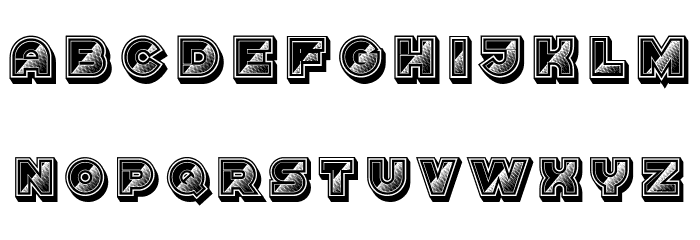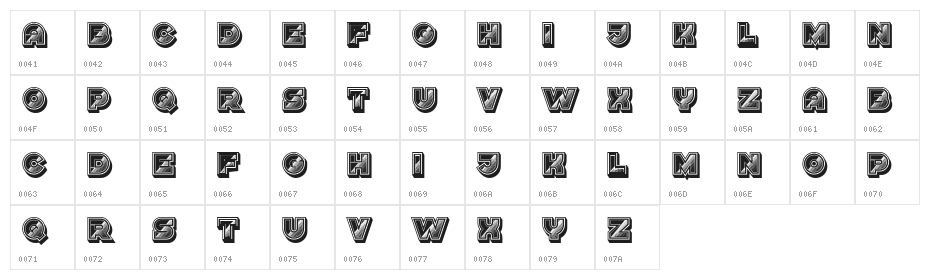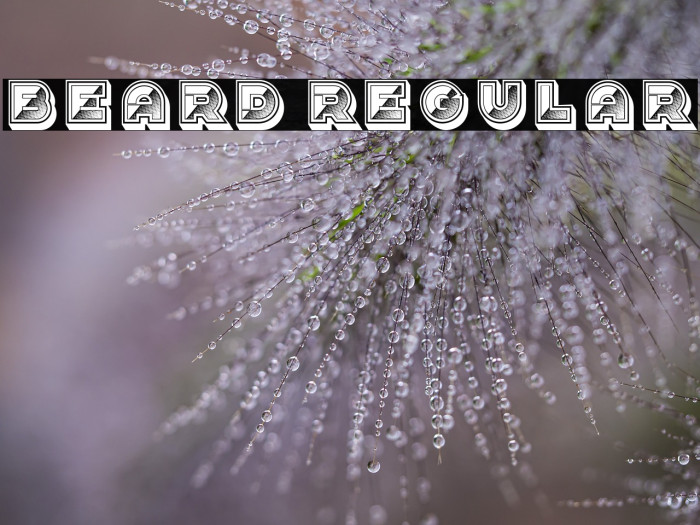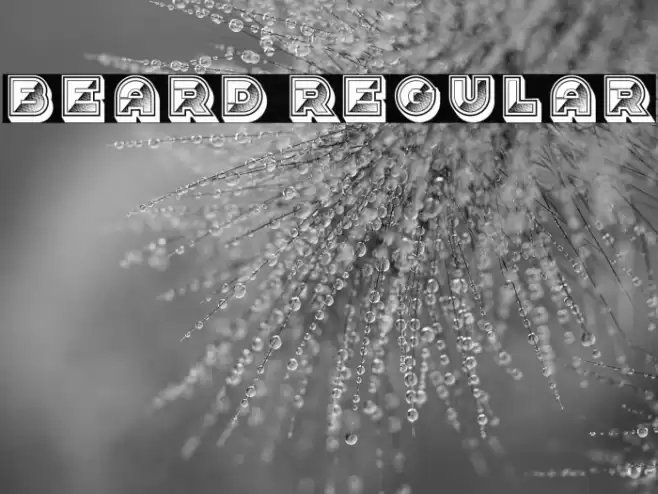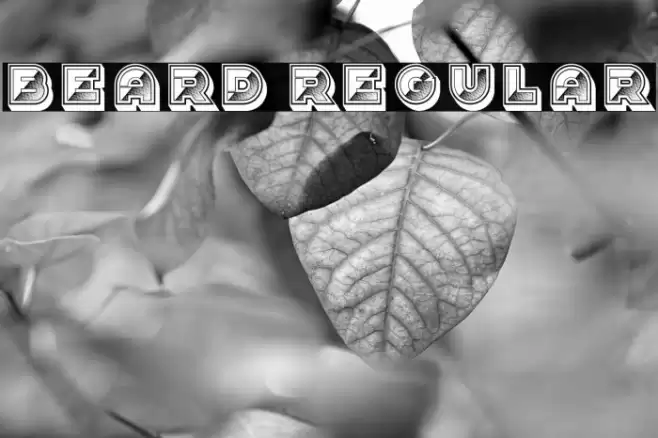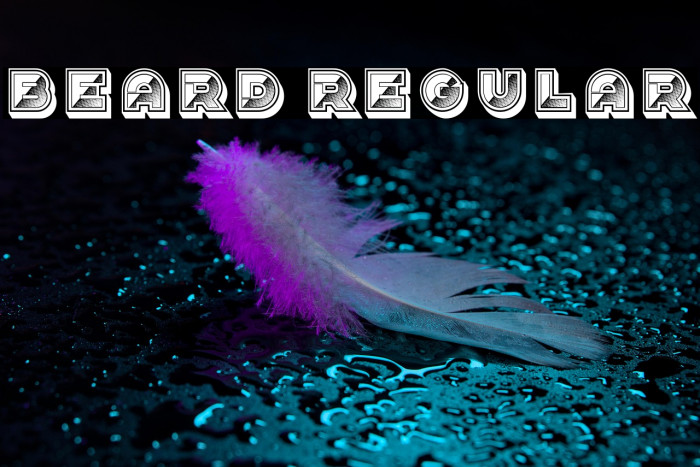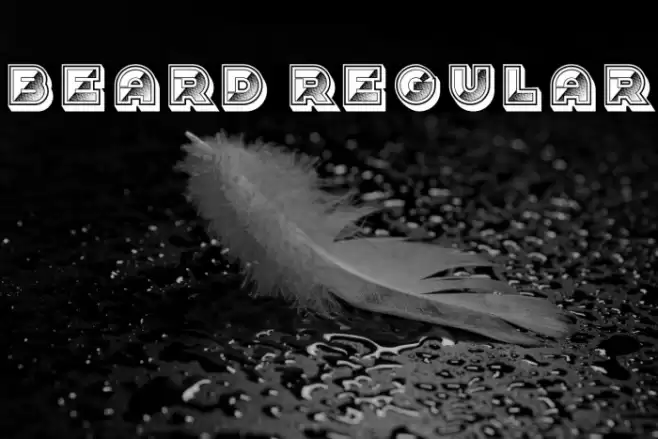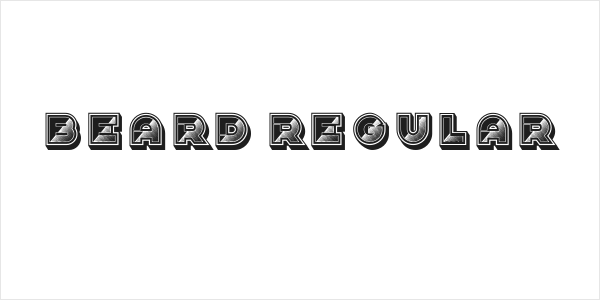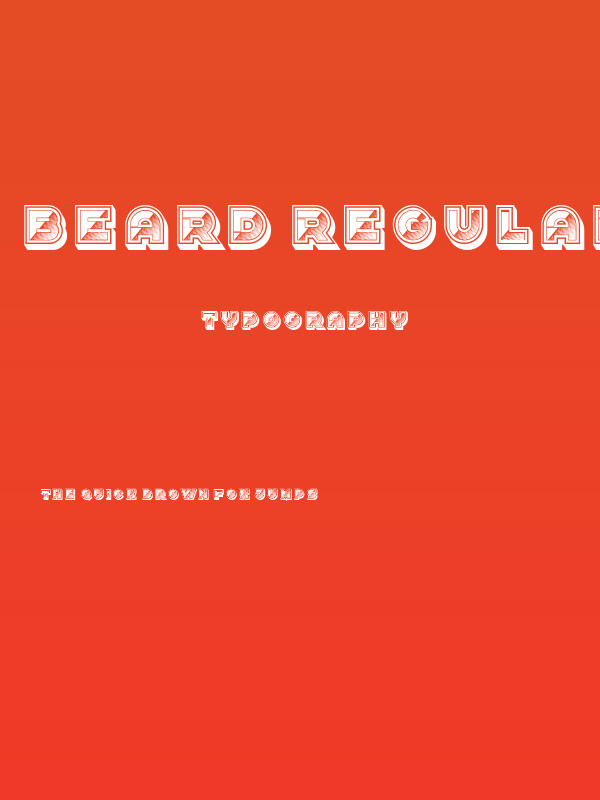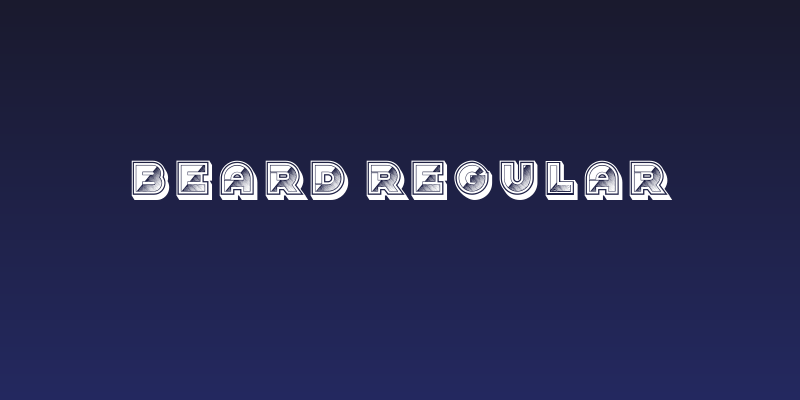
Beard Regular Font
Beard Regular Description
This font features a bold, decorative style with intricate patterns within each character. The letters are outlined with a thick border, giving them a three-dimensional appearance. The internal detailing includes various textures and designs, adding a unique and artistic flair. The overall look is eye-catching and suitable for creative projects that require a standout typeface. The uppercase letters are consistent in style, with each character maintaining a uniform height and width, contributing to a cohesive visual presentation.
| Proposed Projects | Ideal for poster designs, album covers, branding materials, and any project needing a striking, artistic typeface. |